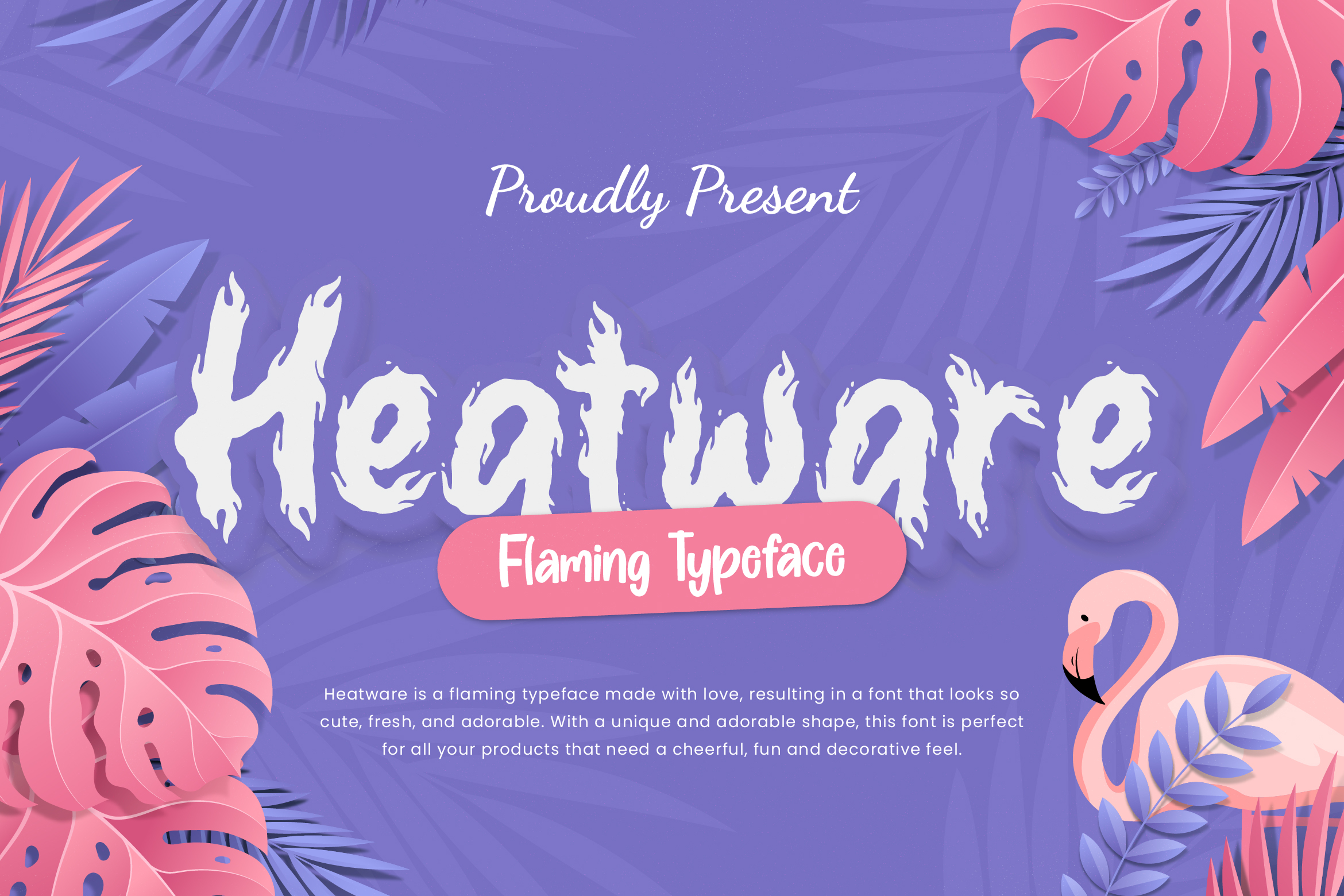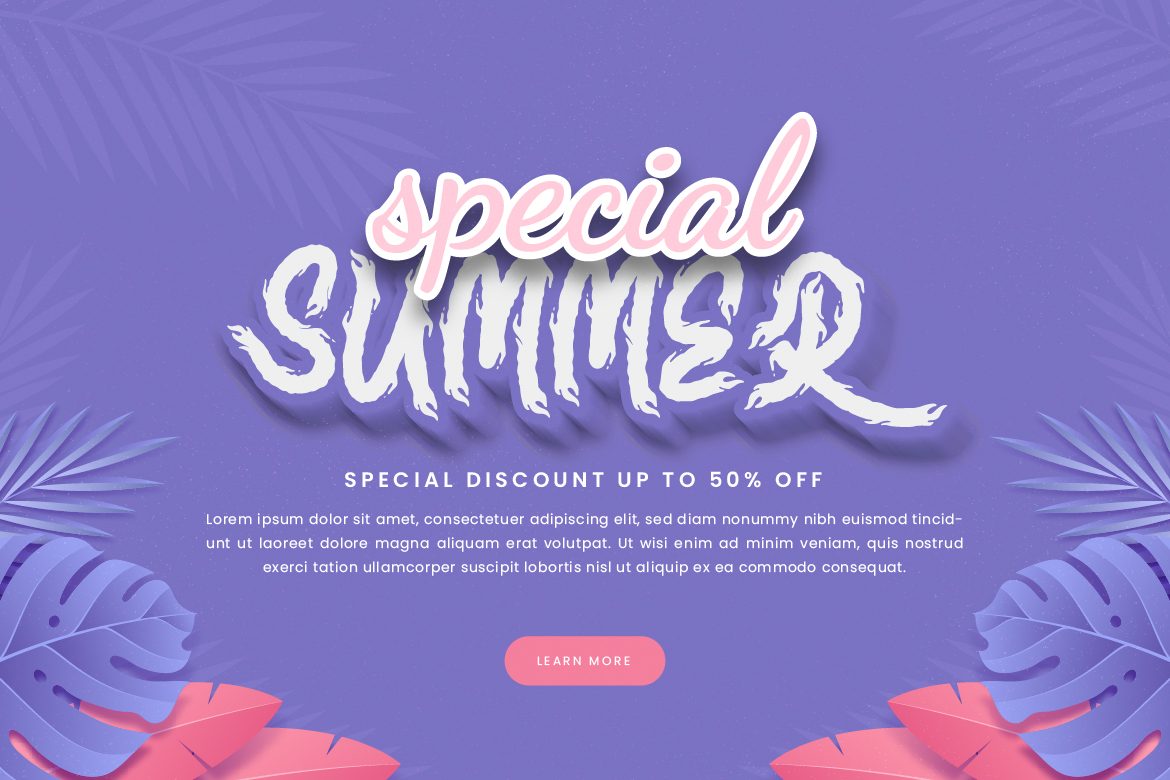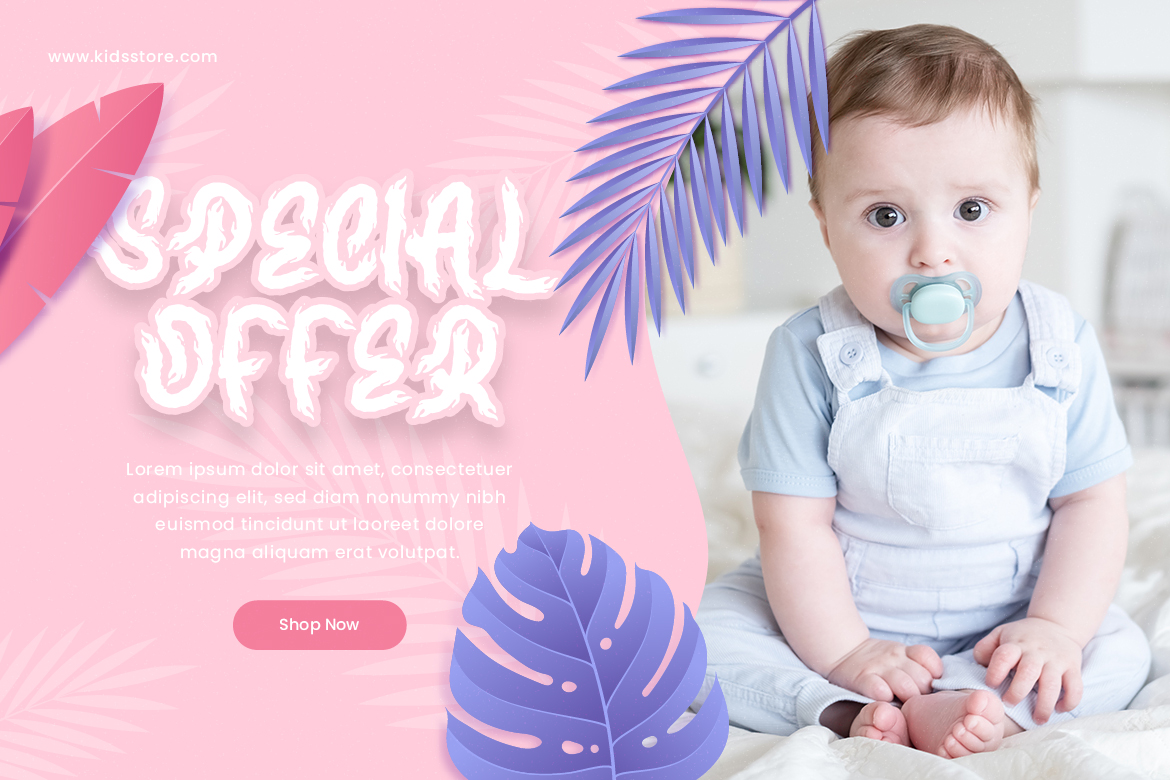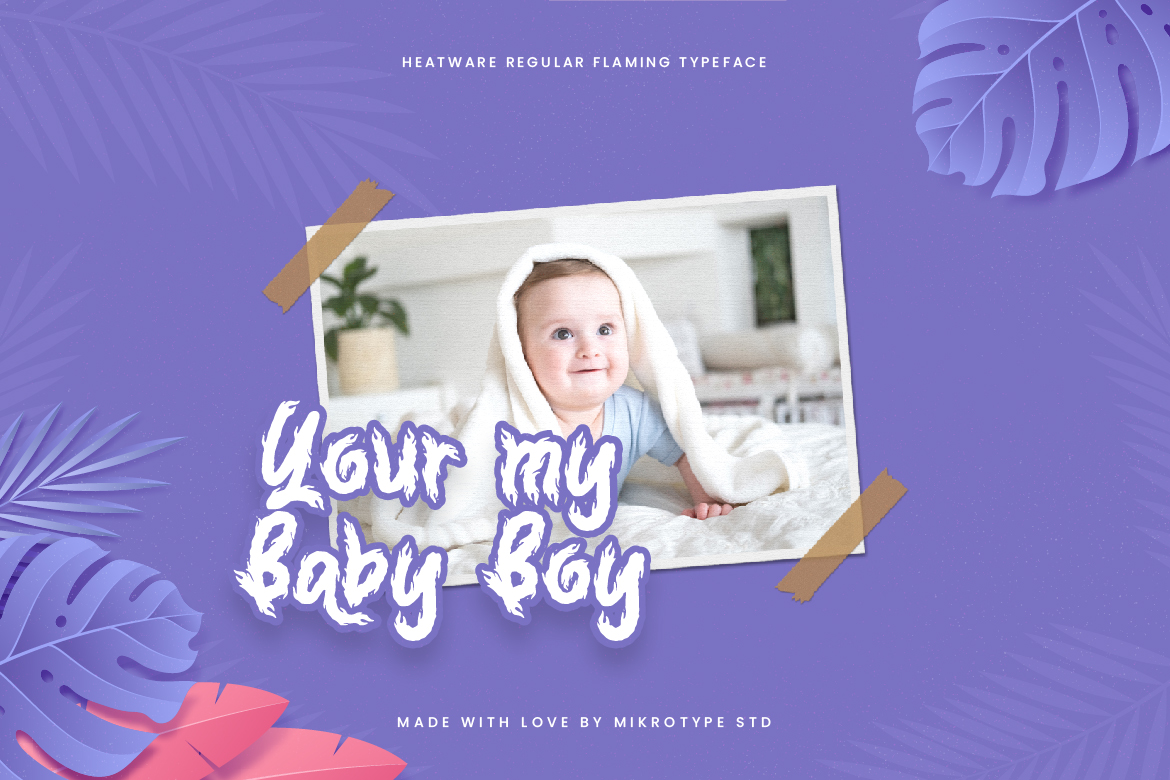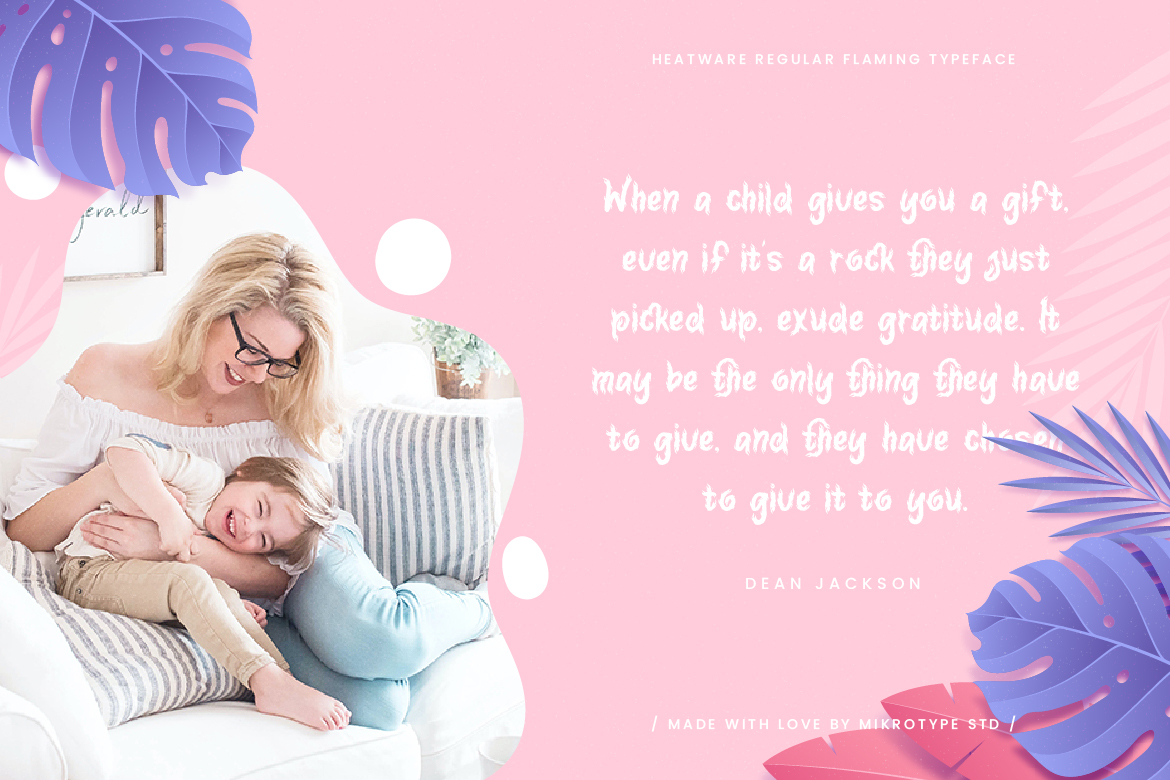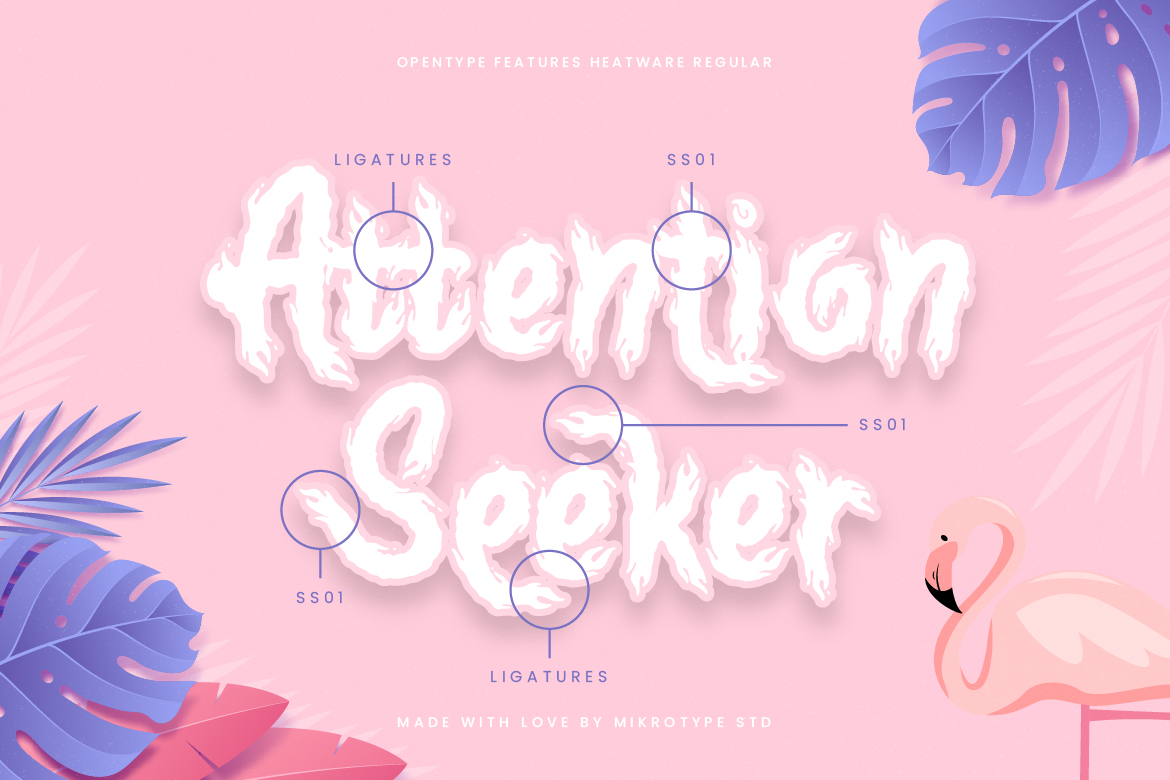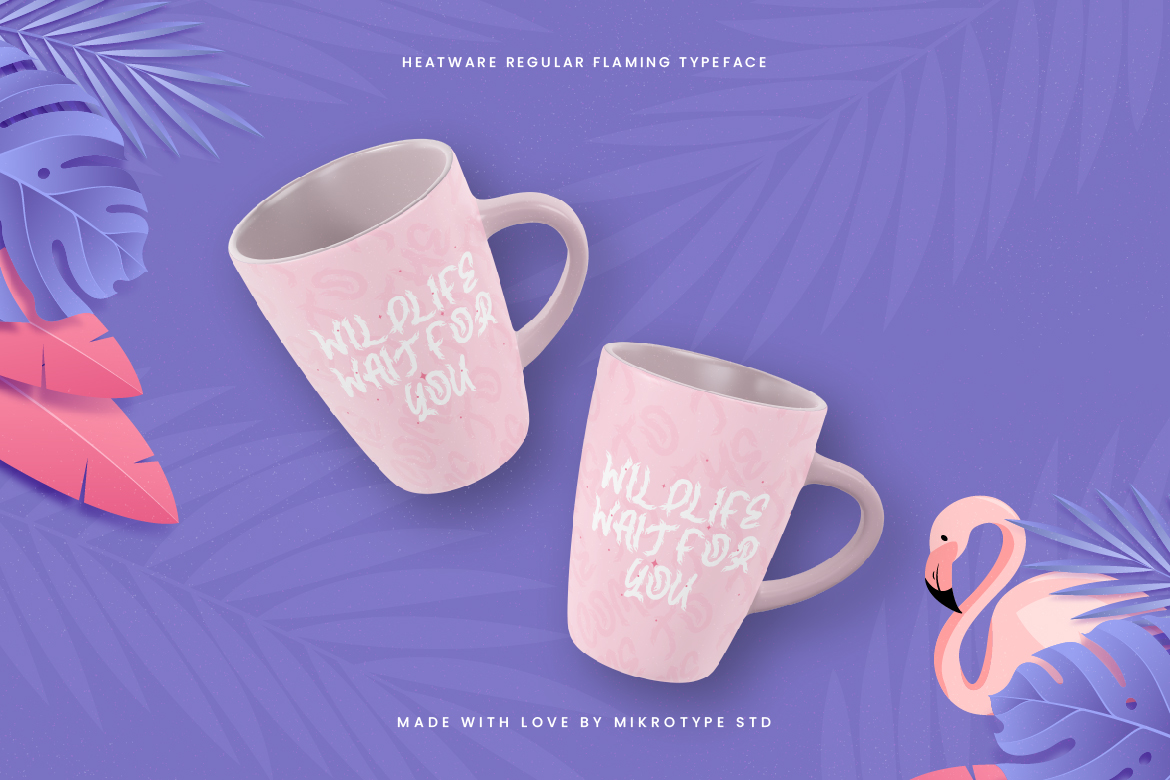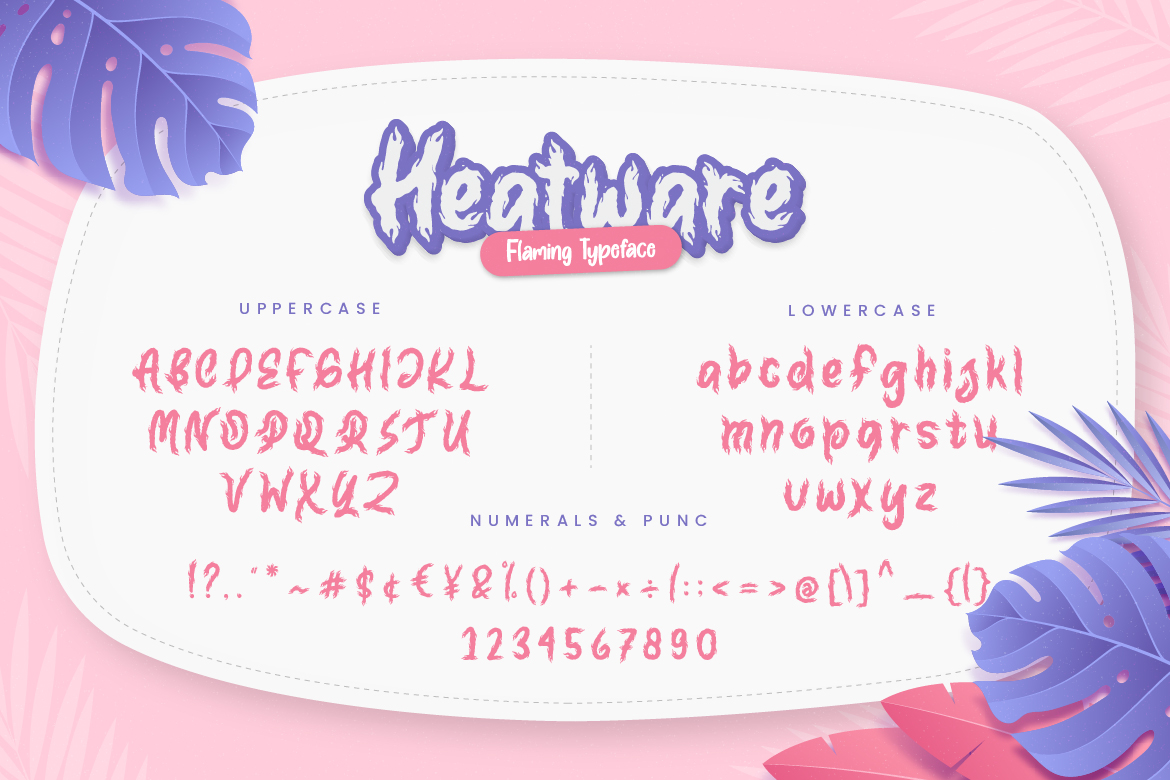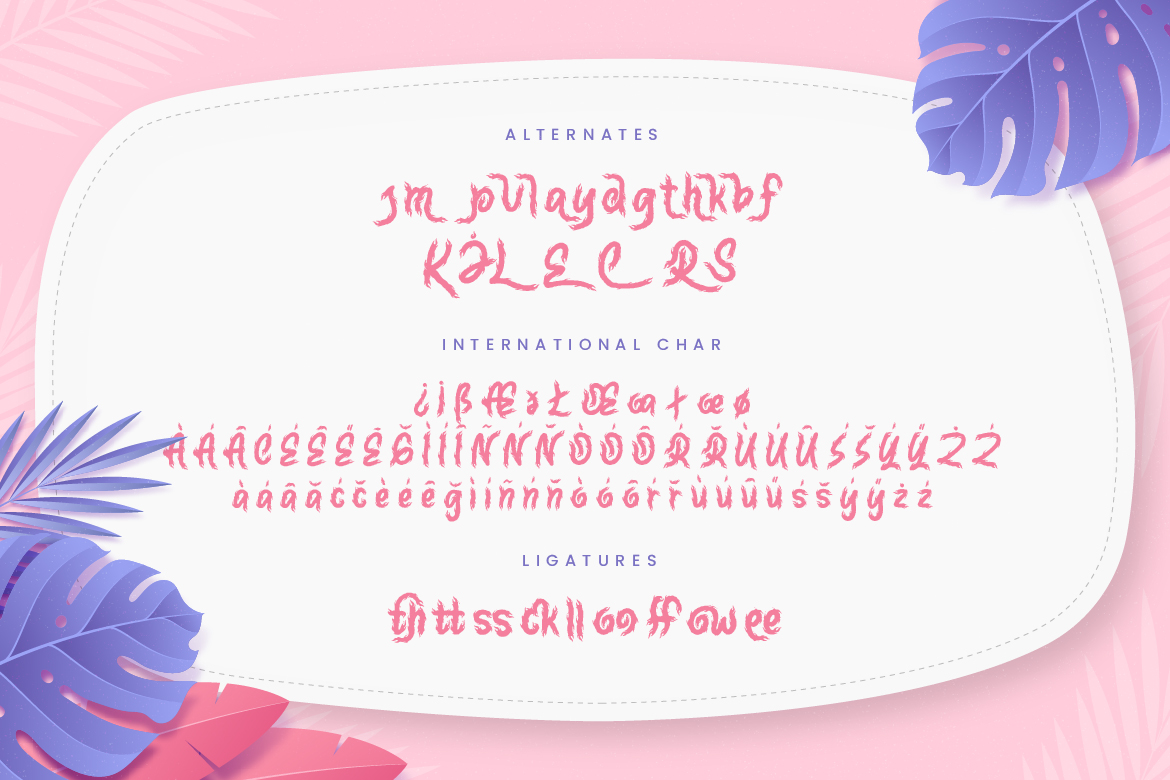
Heatware Flaming Advertisement Font
Introducing Heatware – A flaming typeface made with love, resulting in a font that looks so cute, fresh, and adorable. With a unique and adorable shape, this font is perfect for all your products that need a cheerful, fun and decorative feel. The font is perfect for for movie title, logo, blogging, brand identity, book title, social media, branding, wedding invites, cards or simply use it in your next design project and suitable to use for many occasion.
• Ton of glyphs
• Ligature & Alternate